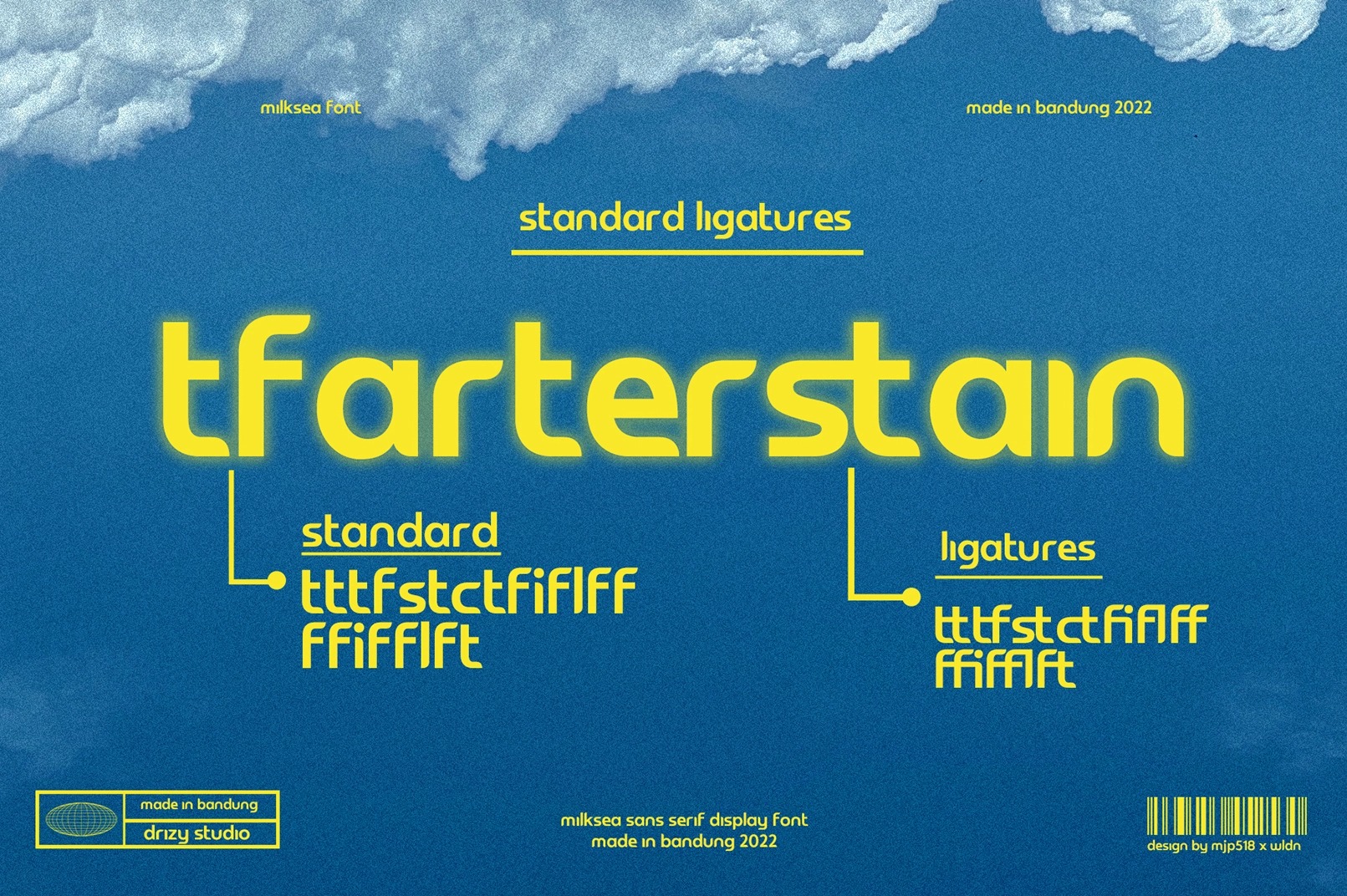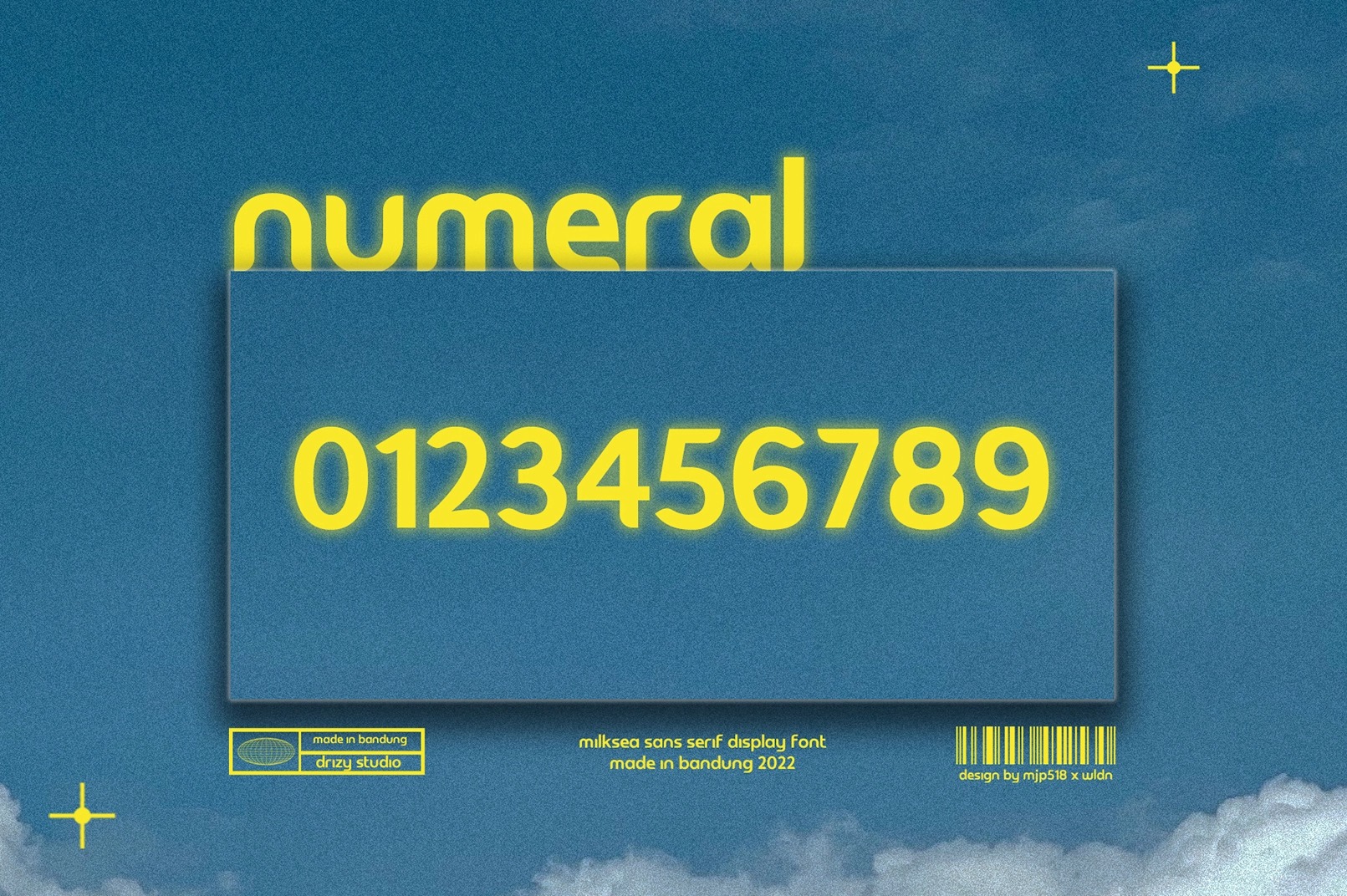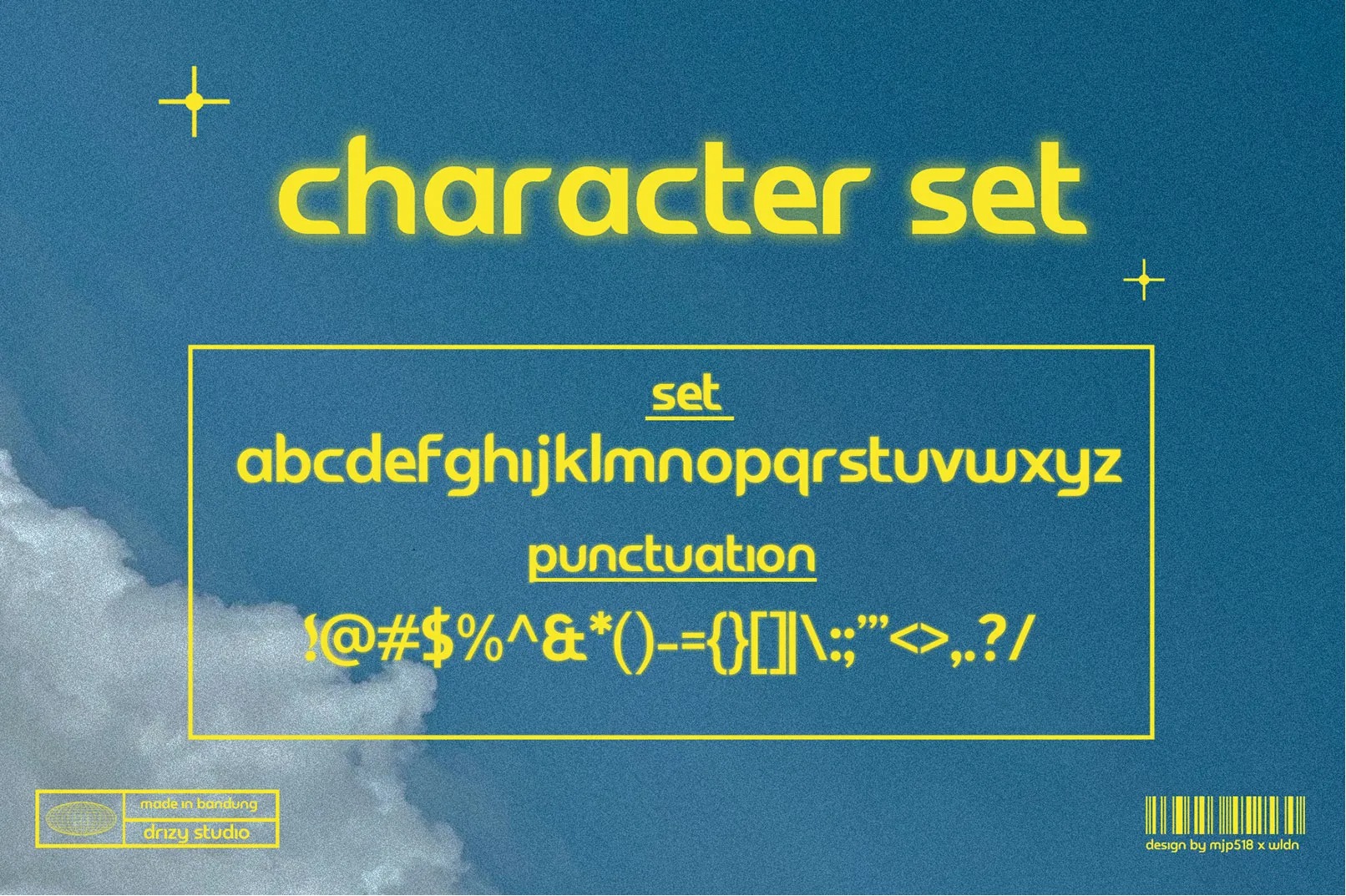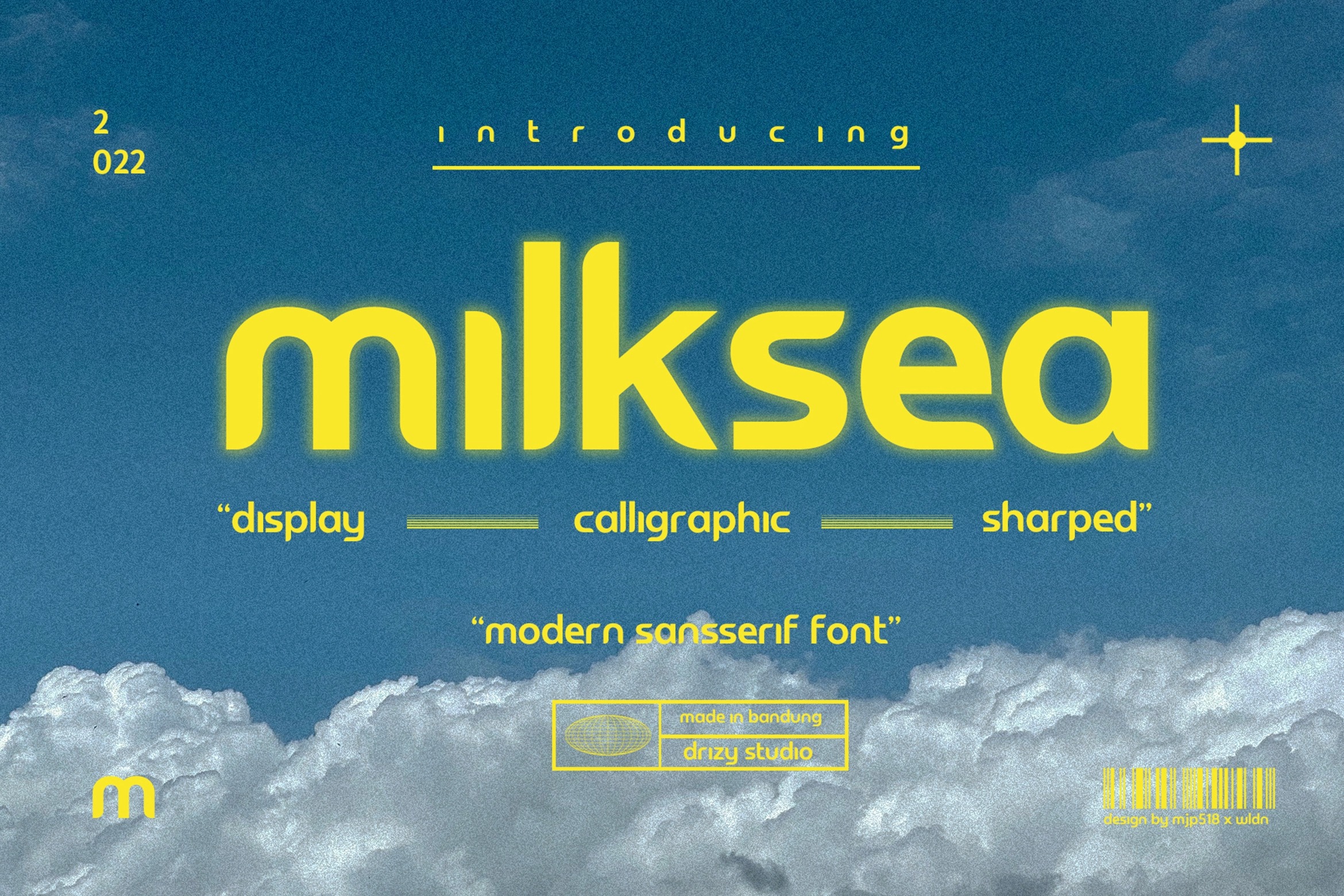
Milksea Font
Milksea Sans Serif Font is a geometric sans serif font family with round corners and maintains rationality in designing each form. Very suitable for greeting cards, branding materials, business cards, quotes, posters, and more! Or you can create perfect and unique design of your logo, blog, stationery, marketing, magazines and more.